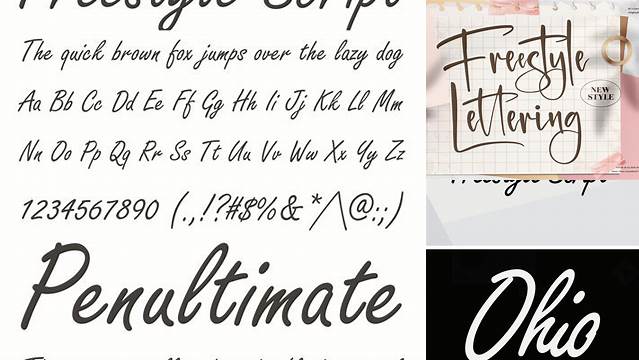
Hey guys! Ever stumbled upon a font that just oozes personality and flair? Well, let's dive into the world of Freestyle Script, a font family that's as playful as it is elegant. This guide is all about giving you the lowdown on everything Freestyle Script – from its origins and characteristics to how you can download and use it like a pro. So, buckle up and let's get started!
Understanding the Freestyle Script Font Family
What is Freestyle Script?
Freestyle Script is more than just a font; it's a statement. Designed by the talented Martin Wait in 1981, this typeface is instantly recognizable for its flowing, hand-lettered style. Think of it as the digital equivalent of a stylish signature. Freestyle Script falls into the script font category, mimicking the fluidity of handwriting with its connected letterforms and dynamic strokes. Its unique charm lies in its ability to add a personal touch to any design, making it a favorite for projects that need a dash of personality and warmth. Whether you're working on invitations, branding materials, or web design, Freestyle Script can bring a touch of elegance and playfulness that few other fonts can match.
But what truly sets Freestyle Script apart is its versatility. It’s not just a pretty face; it’s a workhorse that can adapt to various design needs. From bold headlines to delicate body text, Freestyle Script offers a range of weights and styles, allowing you to create a cohesive and visually appealing design. It’s the kind of font that whispers sophistication while still feeling approachable and friendly. Imagine using it for wedding invitations – the flowing script adds a romantic touch, hinting at the special occasion. Or picture it on a logo for a boutique bakery – the playful curves evoke a sense of handcrafted goodness. In essence, Freestyle Script is a font that speaks volumes, making it an invaluable addition to any designer's toolkit.
Key Characteristics of Freestyle Script
When you look at Freestyle Script, the first thing that grabs your attention is its calligraphic flair. The letters flow seamlessly into each other, creating a sense of movement and rhythm. The font's strokes vary in thickness, mimicking the natural variations of handwriting and adding to its authenticity. Freestyle Script also boasts distinctive swashes and loops, especially in its uppercase letters, which contribute to its elegant and decorative appearance. These swashes can add a touch of drama and sophistication, making your text stand out even more. The italic version of the font is particularly striking, with its exaggerated curves and flourishes enhancing the sense of গতি and energy.
Beyond its aesthetic appeal, Freestyle Script's key characteristics also include its legibility, which is crucial for any font. While it's undeniably decorative, Freestyle Script maintains a level of clarity that ensures your message is easily readable. This balance between style and functionality is what makes it such a versatile choice for a wide range of applications. Whether you're designing a logo, creating marketing materials, or crafting social media graphics, Freestyle Script can help you convey your message with both style and clarity. The font's unique personality also makes it memorable, ensuring that your designs leave a lasting impression on your audience. It’s a font that doesn’t just speak; it sings.
Why Choose Freestyle Script?
So, why should you pick Freestyle Script over the thousands of other fonts out there? Well, the answer lies in its unique blend of elegance and playfulness. Freestyle Script is perfect for projects where you want to convey a sense of sophistication without being too formal or stuffy. It's like the cool, creative friend who can dress up for a fancy event but still knows how to have a good time. This versatility makes it an excellent choice for a wide array of design applications, from wedding invitations and greeting cards to branding materials and websites.
Another reason to love Freestyle Script is its ability to add a personal touch. In a world of sterile, digital fonts, Freestyle Script stands out with its hand-lettered feel, making your designs feel more authentic and human. This is especially important for businesses and brands that want to connect with their audience on an emotional level. Using Freestyle Script can help you create a brand identity that feels approachable, friendly, and memorable. Plus, its distinctive style ensures that your designs will stand out from the crowd, helping you capture attention and leave a lasting impression. In short, choosing Freestyle Script is like adding a secret ingredient to your design recipe – it's the special something that makes everything taste better.